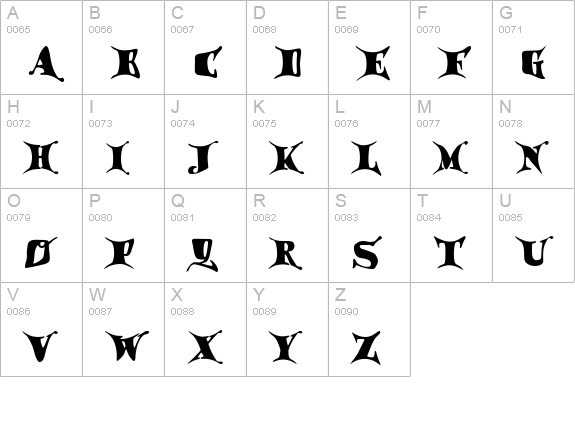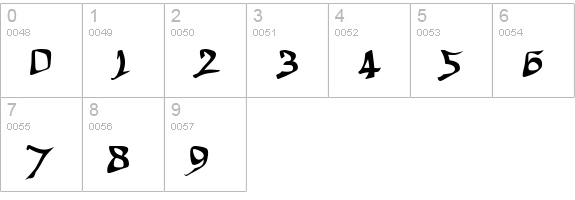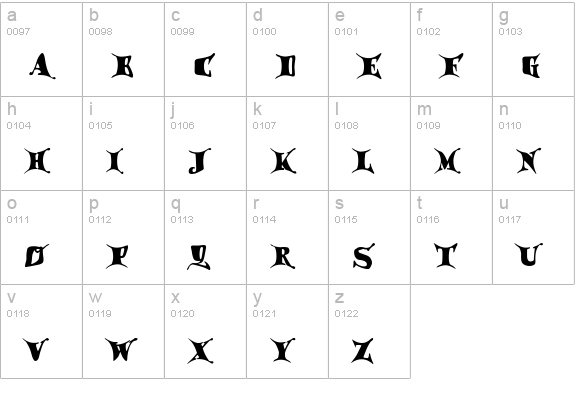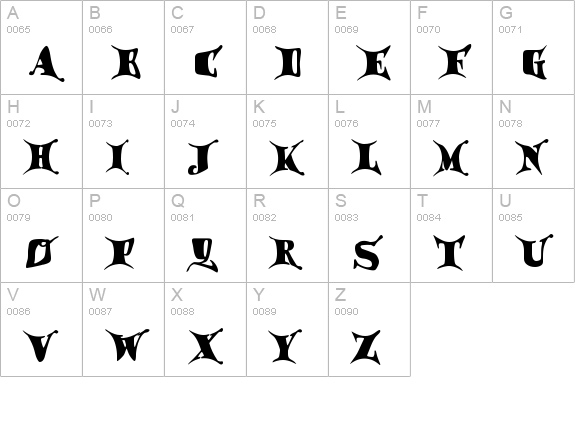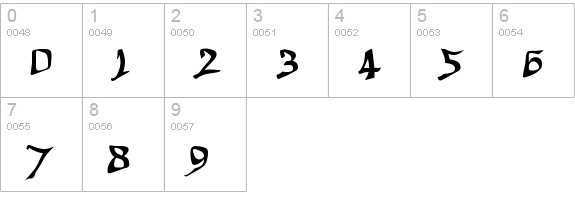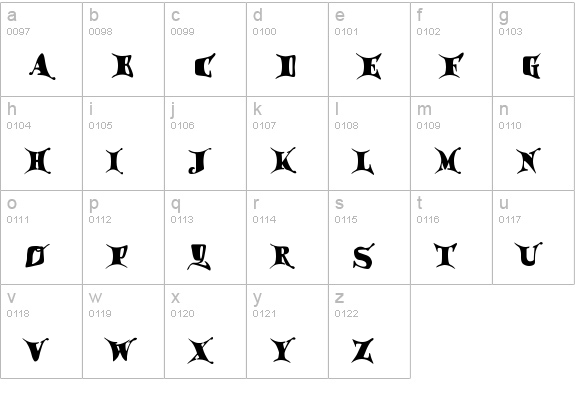
Draggletail Font Details
Introducing Draggletail font - a whimsical and playful typeface that exudes charm and personality. With its unique design and quirky details, Draggletail is the perfect choice for projects that require a touch of fun and creativity. This font features smooth curves and flowing lines that give it a dynamic and energetic feel. What sets Draggletail font apart is its versatility - it can be used for a wide range of design projects, from branding and advertising to invitations and social media graphics. Whether you're looking to add a sense of whimsy to your designs or simply want to stand out from the crowd, Draggletail is sure to make a statement. And the best part? Draggletail font is completely free to download at FontsMarket.com. So go ahead and unleash your creativity with this charming and eye-catching typeface.